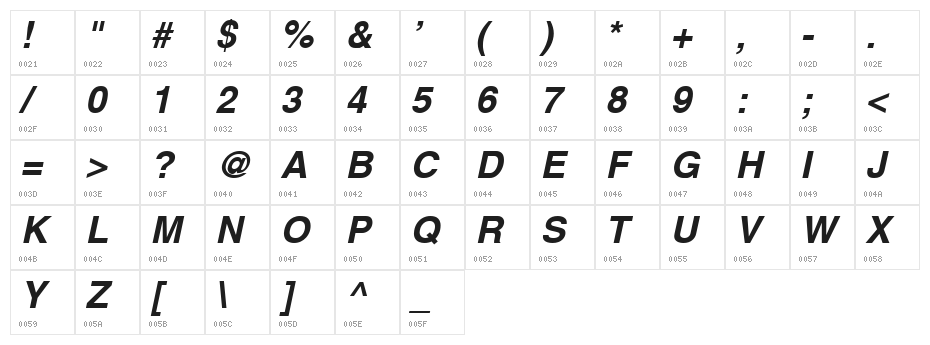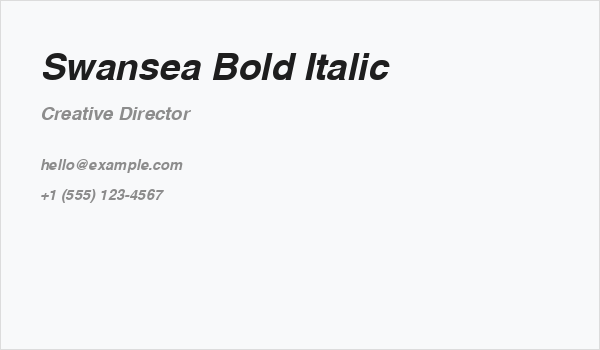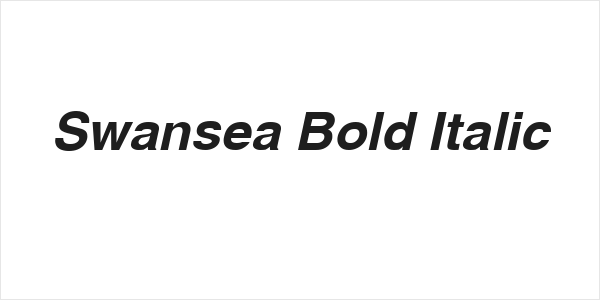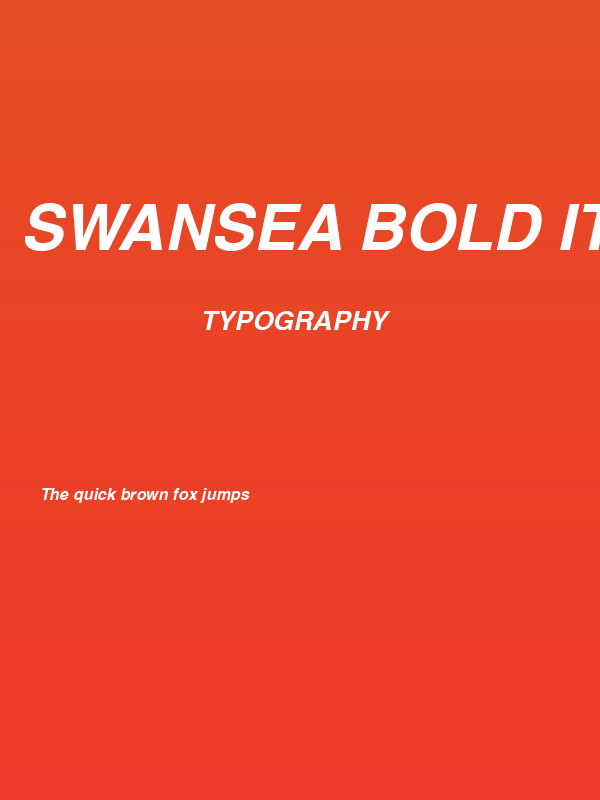
Swansea Bold Italic Font
Swansea Bold Italic Description
This font exhibits a bold and italicized style, characterized by its strong and dynamic appearance. The letters are slanted, adding a sense of movement and urgency. The strokes are thick, providing a robust and confident look. The uppercase and lowercase letters maintain a consistent style, ensuring readability while adding a touch of flair. The numerals are clear and bold, making them stand out effectively. Special characters are well-defined, complementing the overall aesthetic. This font is suitable for making a strong visual impact, ideal for headlines or branding that requires emphasis and style.